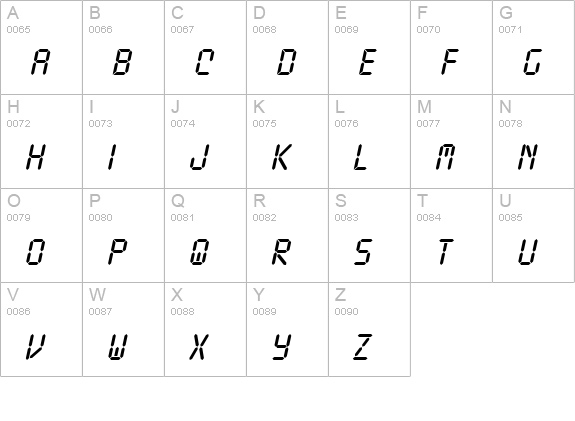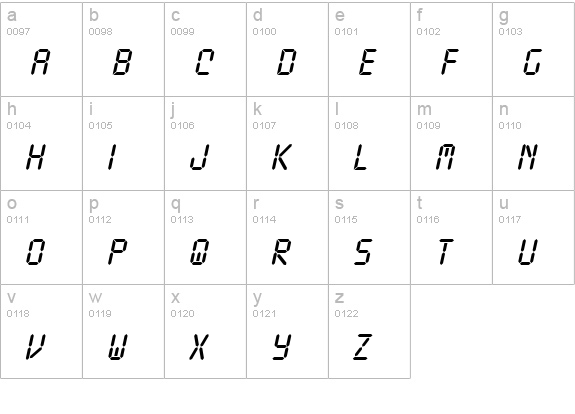
Ticking Timebomb BB Italic Font Details
Ticking Timebomb BB Italic is a distinctive, italic variant in the Ticking typeface family \xE2\x80\x94 well suited to design and typography projects.
Introducing Ticking Timebomb BB Italic font, a captivating and edgy typeface that exudes a sense of urgency and anticipation. This font is designed to make a bold statement and add a touch of dynamism to any project it graces. With its distinctive and eye-catching italic style, Ticking Timebomb BB Italic font demands attention and leaves a lasting impression. Its letterforms possess a unique combination of sharp angles and sleek curves, creating a visual rhythm that is both energetic and captivating. This font is perfect for projects that require a sense of urgency, such as movie posters, album covers, or event invitations. What sets Ticking Timebomb BB Italic font apart is not only its striking design but also its versatility. It is a font that effortlessly transitions between genres and themes, making it suitable for a wide range of creative endeavors. Whether you're working on a futuristic sci-fi project, an adrenaline-fueled action sequence, or a thought-provoking editorial layout, this font will elevate your designs to new heights. But the best part? Ticking Timebomb BB Italic font is freely available to download at FontsMarket.com. We believe that creativity should have no limitations, and that's why we're offering this font for free. So go ahead, unleash your imagination and take advantage of this incredible opportunity to enhance your designs with the captivating Ticking Timebomb BB Italic font. Download it today and watch your projects explode with visual impact.